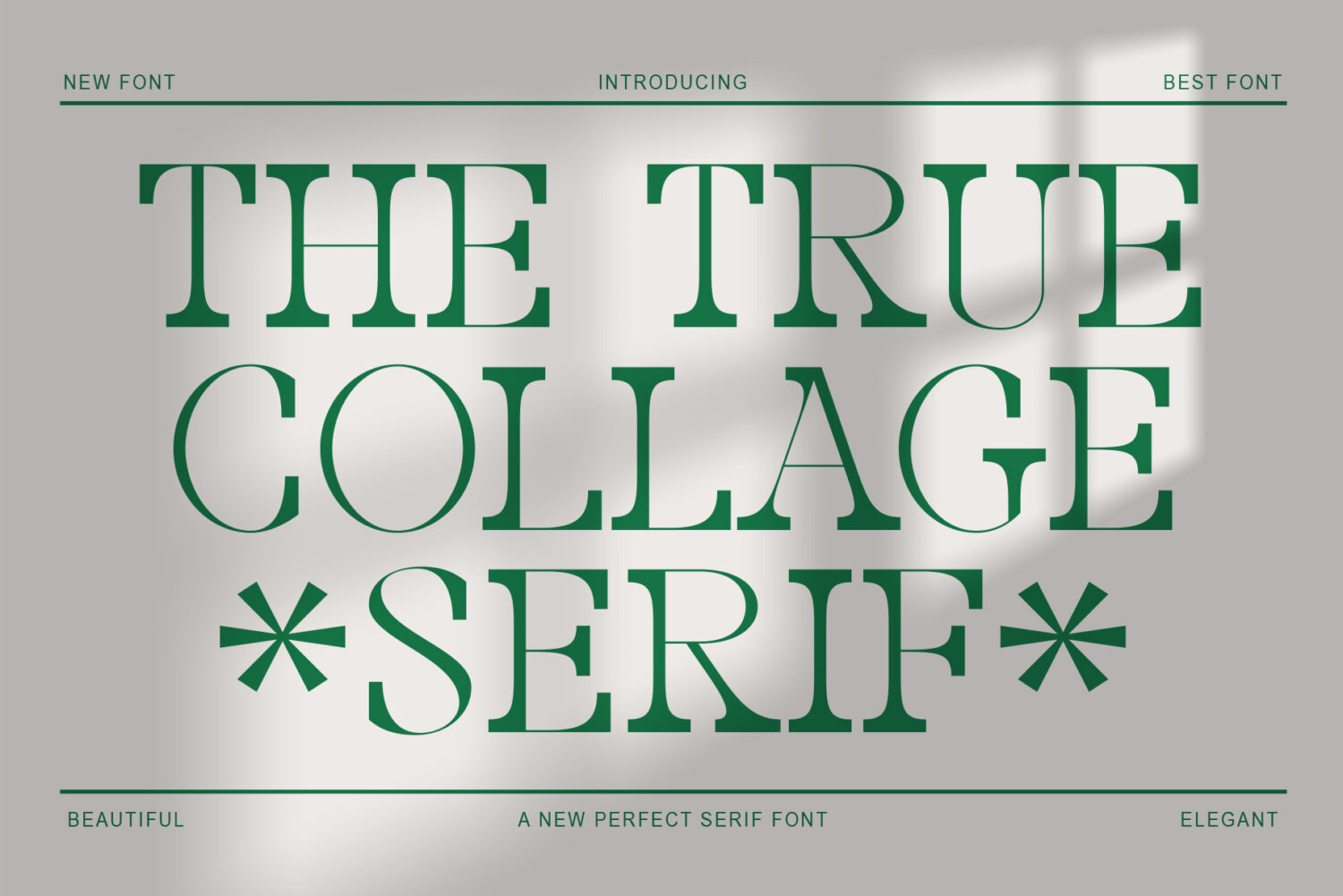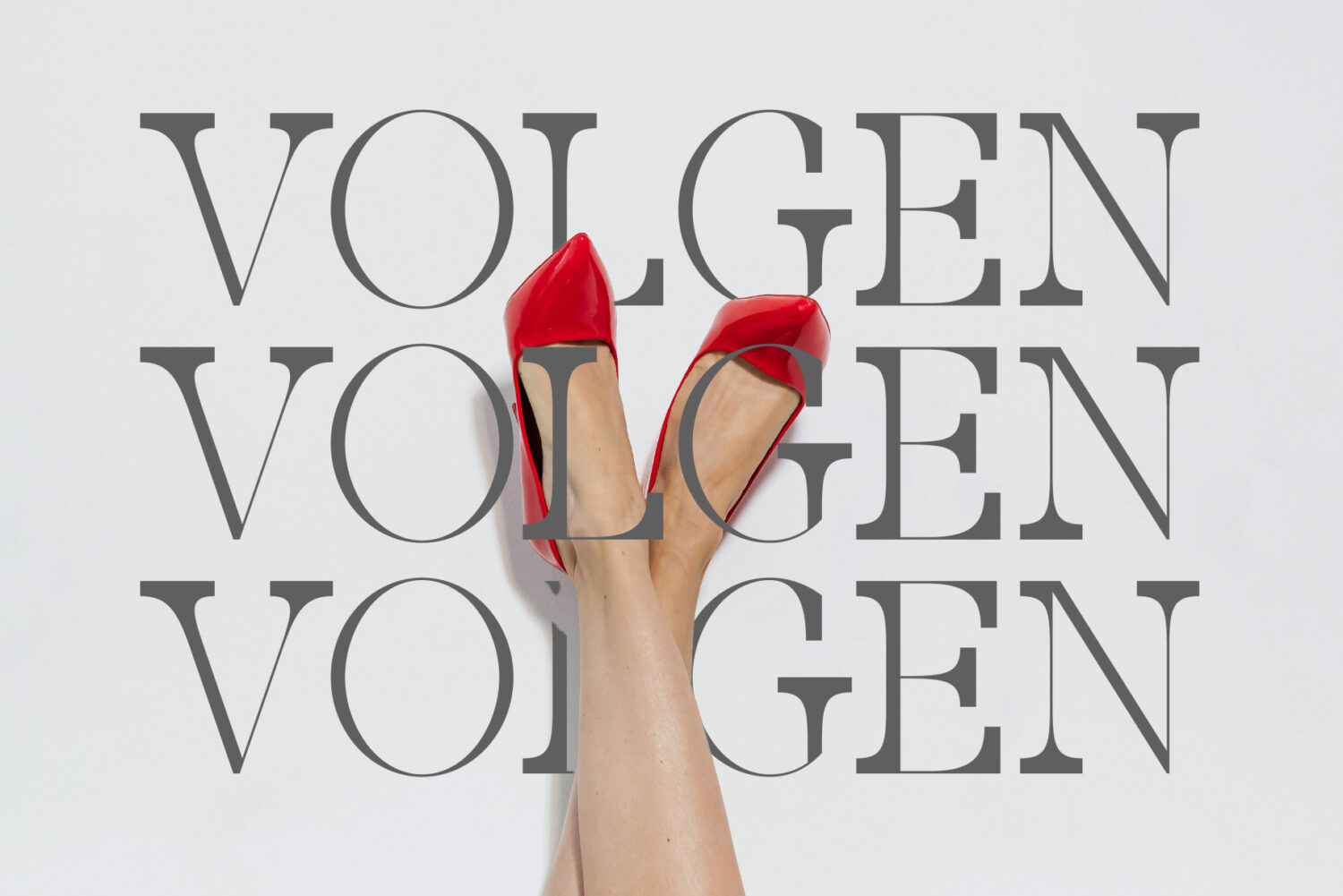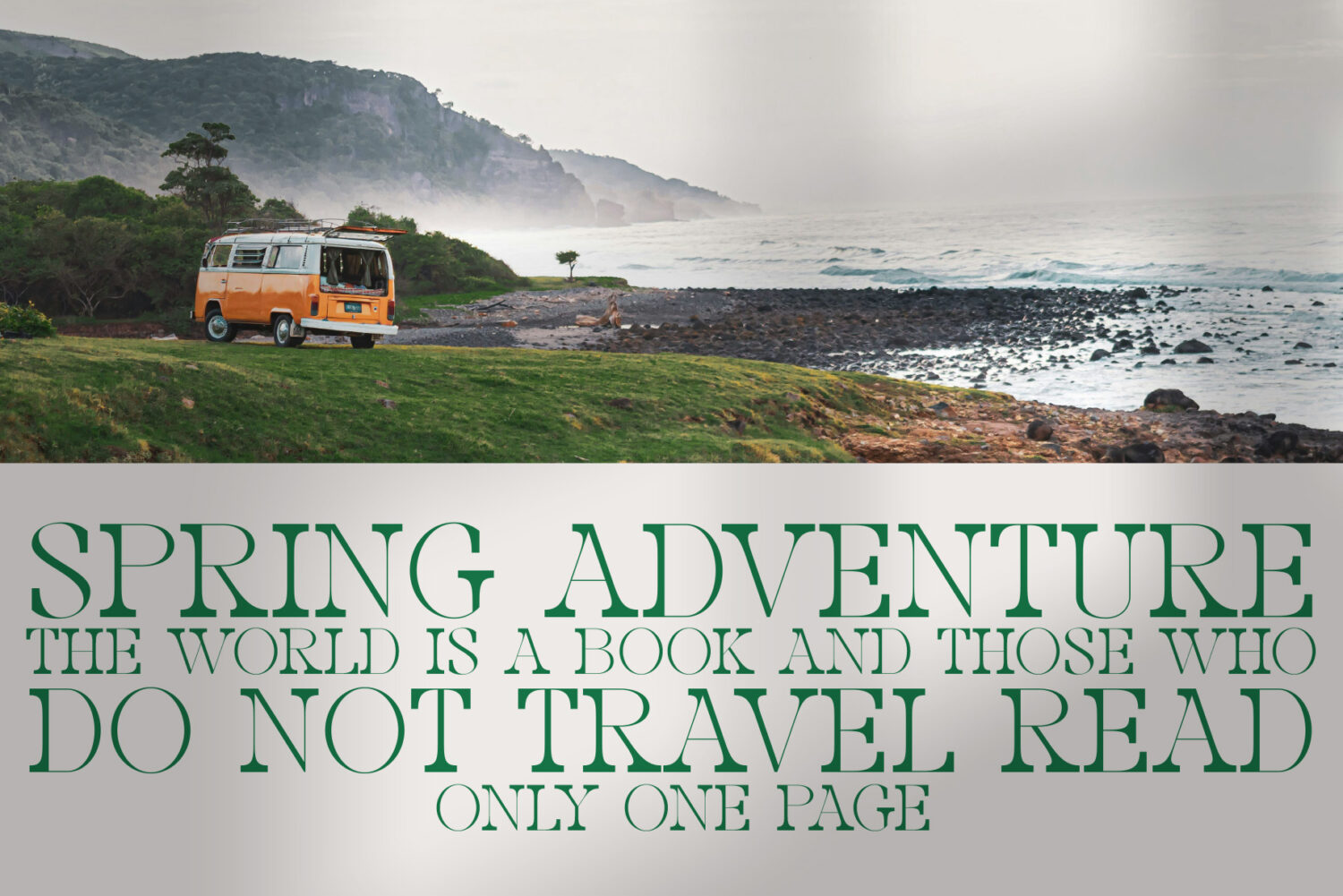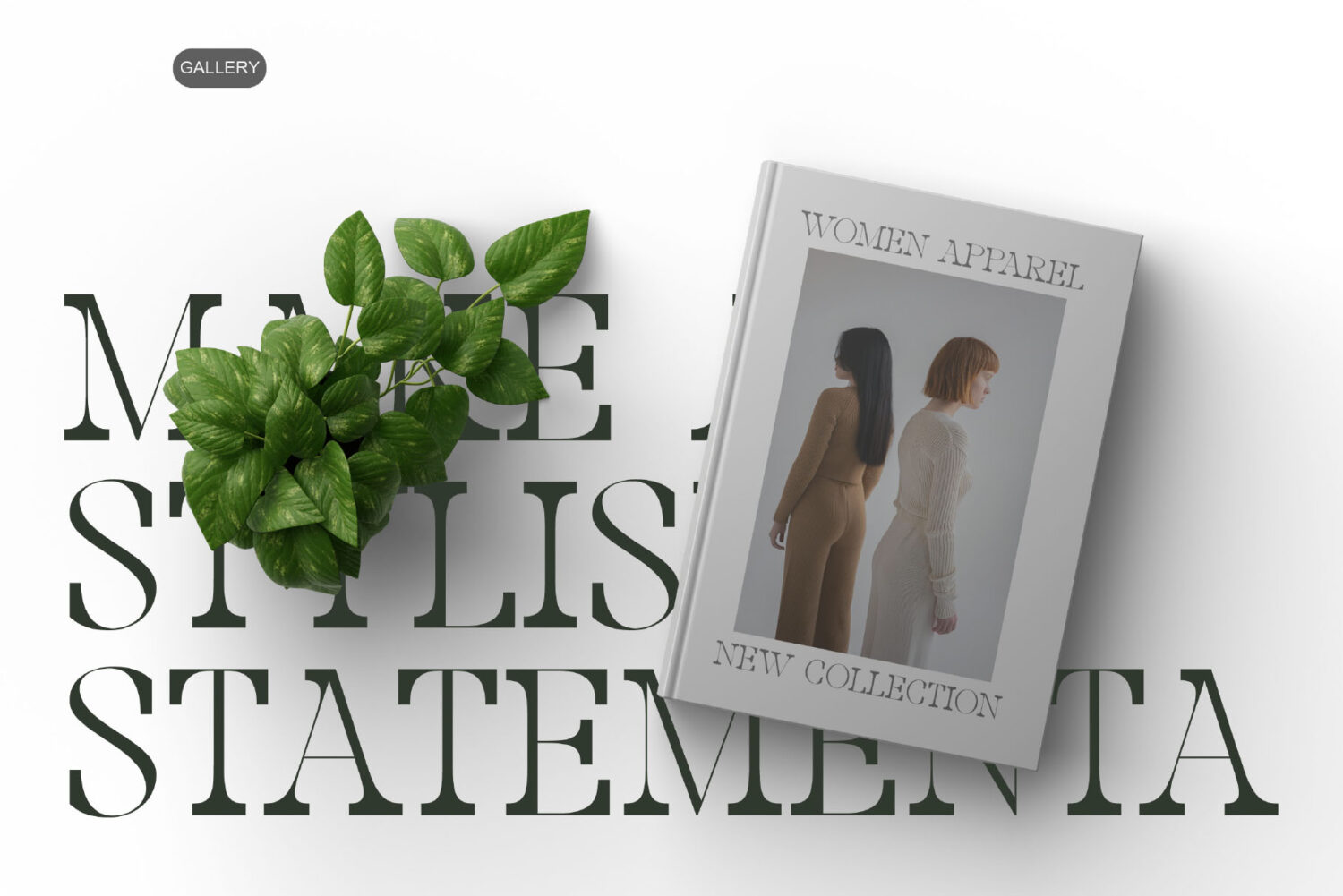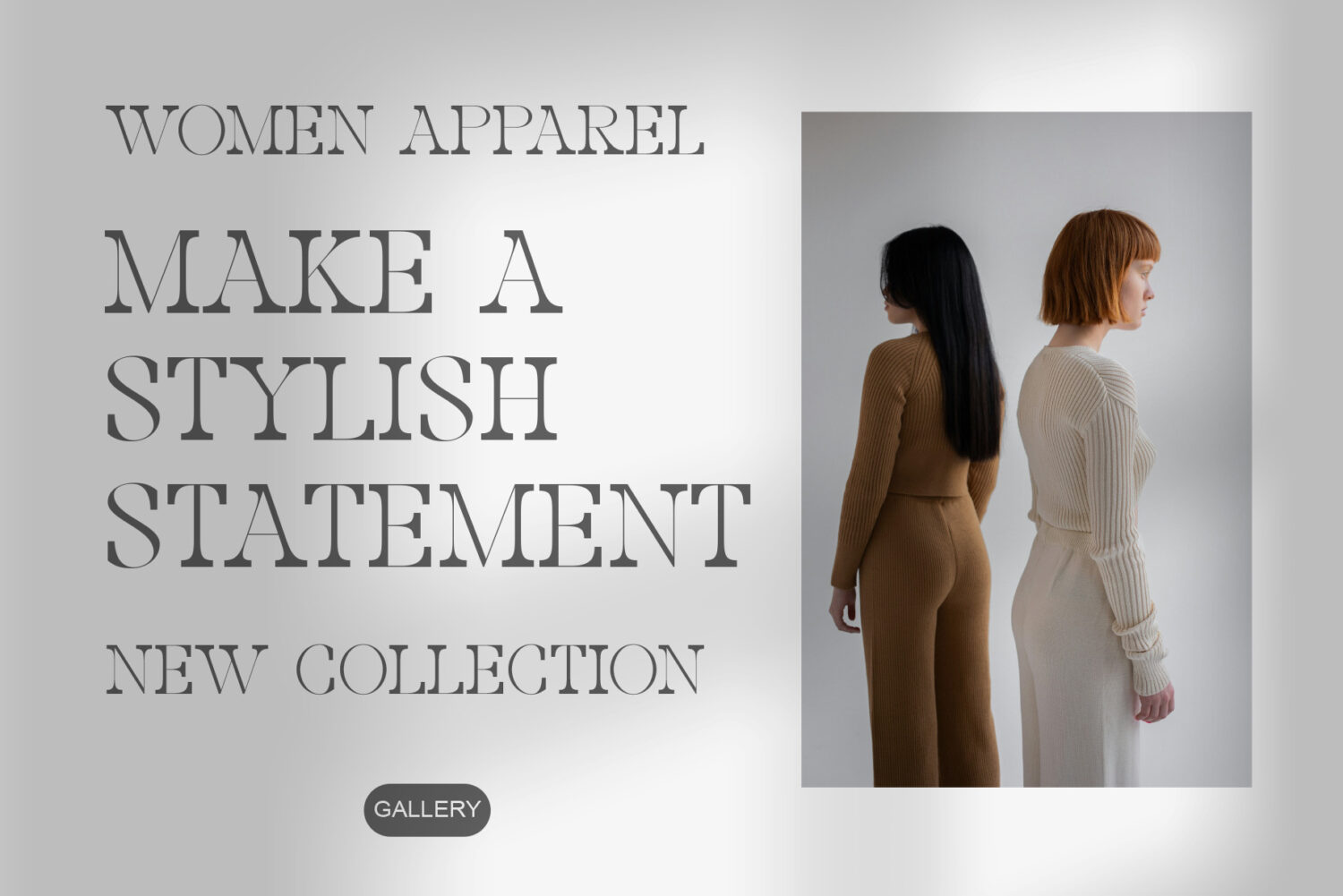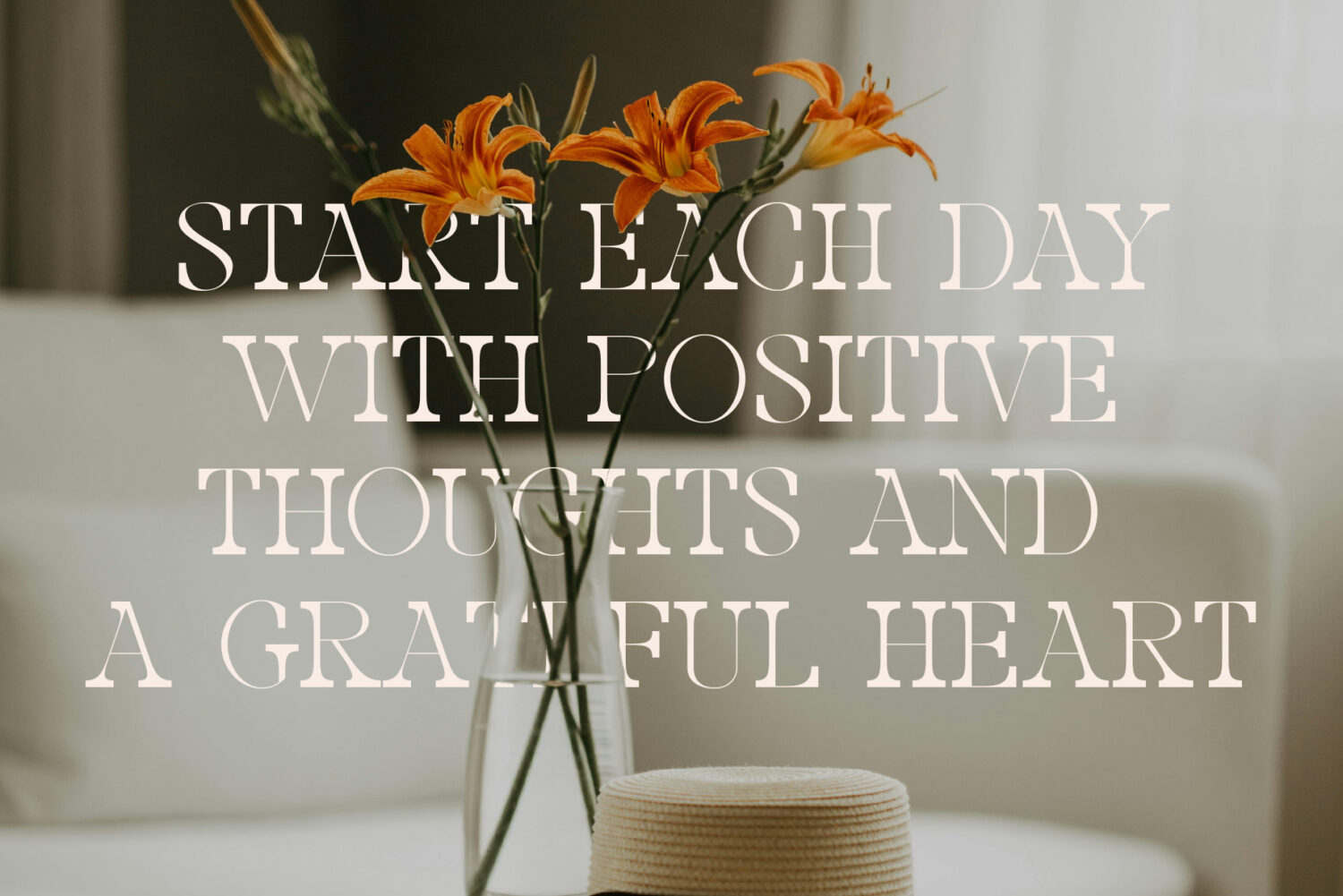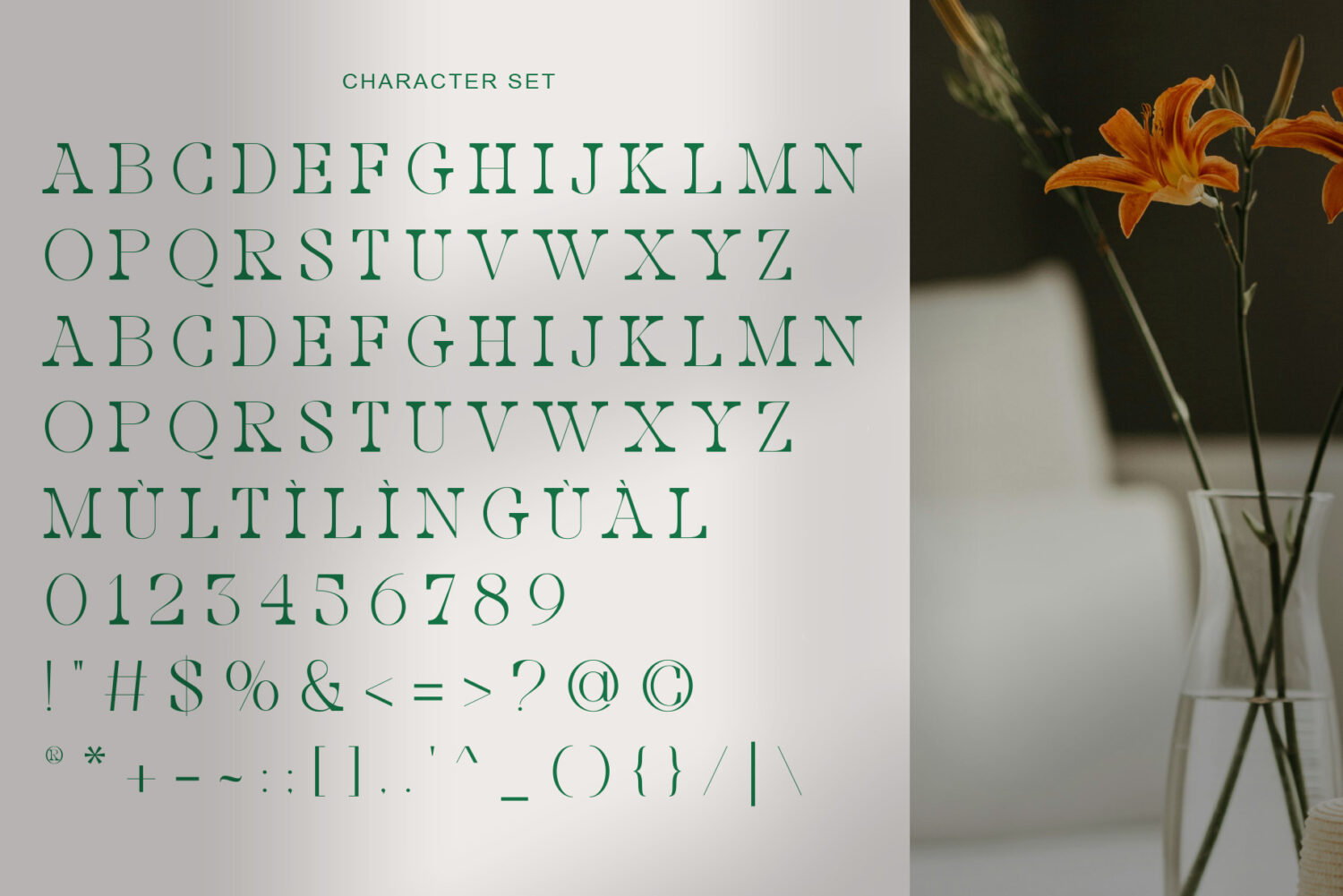
Introducing **The True Collage** An elegant, beautiful and modern serif typeface. With its modern and minimalist appearance, The True Collage brings a luxurious, classy and clean impression to your projects such as websites, modern logos, branding identities, social media quotes, wedding stationery, magazines and various other needs!
The True Collage features unique and classy capital letters A to Z so that The True Collage is a beautiful font that can be adapted to various projects and jobs that you want.